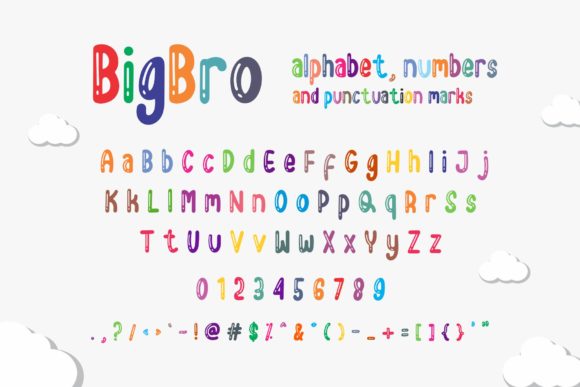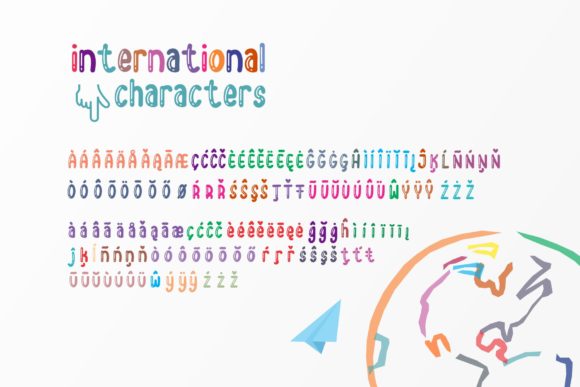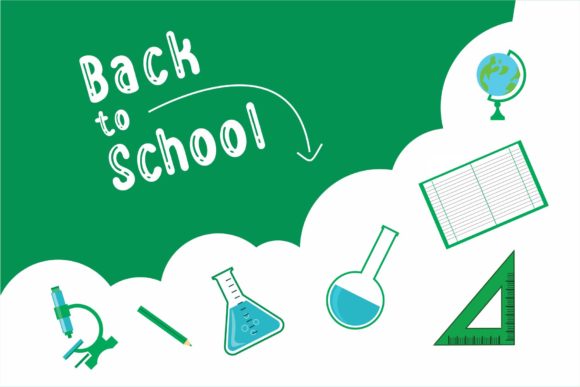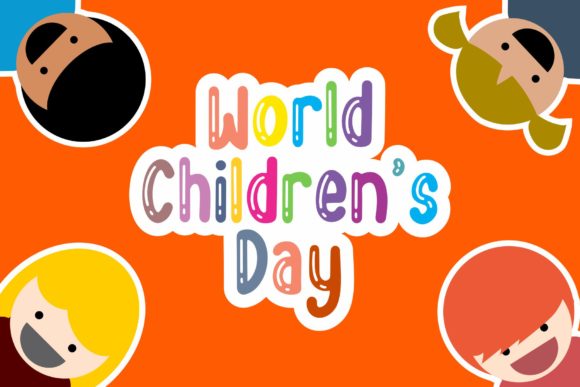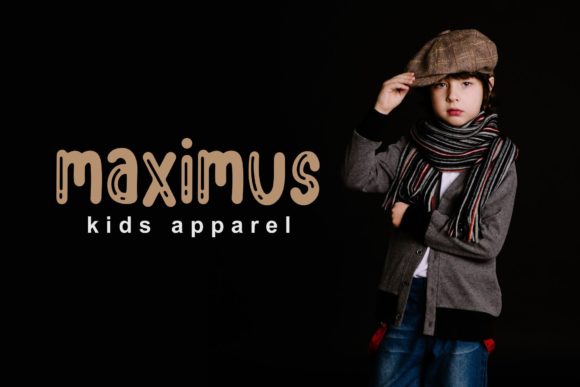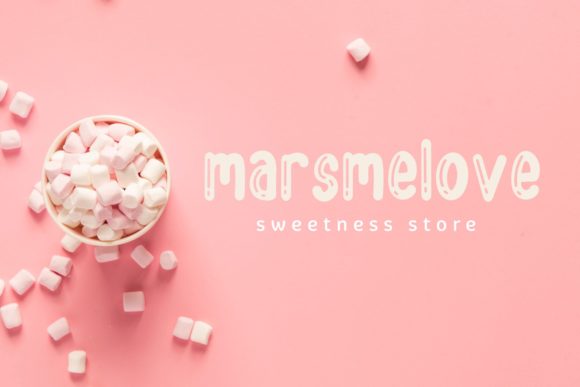
Introducing BigBro Font: The Ultimate Child-Friendly Display Font
Are you tired of using the same old fonts for your designs? Look no further than BigBro Font, an incredibly child-friendly and whimsical display font that’s sure to capture the hearts of designers and crafters alike. With its authentic touch and one-of-a-kind charm, BigBro Font is the perfect addition to any project that requires a dash of playfulness and fun.
The Story Behind BigBro Font
BigBro Font is more than just a font – it’s an experience. Designed with children in mind, this font is perfect for projects that require a friendly and approachable tone. Whether you’re creating a kids’ book, a craft project, or a website for children, BigBro Font is the ideal choice. Its unique and authentic design ensures that your project stands out from the crowd and leaves a lasting impression on your audience.
Key Features of BigBro Font
- Child-Friendly Design: BigBro Font is specifically designed with children in mind. Its playful and whimsical design ensures that it’s perfect for projects that require a friendly and approachable tone.
- Whimsical Display Font: BigBro Font is a display font that’s perfect for headlines, titles, and other display text. Its unique design ensures that it grabs attention and adds a touch of personality to your project.
- Authentic Touch: BigBro Font has an authentic touch that sets it apart from other fonts. Its one-of-a-kind charm ensures that your project stands out from the crowd and leaves a lasting impression on your audience.
- Easy to Read: Despite its playful design, BigBro Font is easy to read and understand. This makes it perfect for projects that require a font that’s both fun and functional.
Uses for BigBro Font
BigBro Font is a versatile font that can be used for a wide range of projects. Here are some ideas to get you started:
- Kids’ Books and Educational Materials: BigBro Font is perfect for kids’ books, educational materials, and other projects that require a friendly and approachable tone.
- Craft Projects: BigBro Font is ideal for craft projects, such as making signs, banners, and other decorative items.
- Websites and Blogs: BigBro Font can be used for websites and blogs that cater to children or require a playful and whimsical tone.
- Signs and Banners: BigBro Font is perfect for signs and banners that require a bold and eye-catching font.
Tips for Using BigBro Font
- Use it for Headlines and Titles: BigBro Font is perfect for headlines and titles. Use it to grab attention and add a touch of personality to your project.
- Pair it with Other Fonts: BigBro Font can be paired with other fonts to create a unique and interesting design. Experiment with different font combinations to find the perfect look for your project.
- Experiment with Colors: BigBro Font looks great in a variety of colors. Experiment with different colors to find the perfect look for your project.
BigBro Font is an incredibly child-friendly and whimsical display font that’s perfect for designers and crafters. With its authentic touch and one-of-a-kind charm, it’s sure to capture the hearts of anyone who uses it. Whether you’re creating a kids’ book, a craft project, or a website for children, BigBro Font is the ideal choice. So why wait? Download BigBro Font today and add a touch of playfulness and fun to your project!